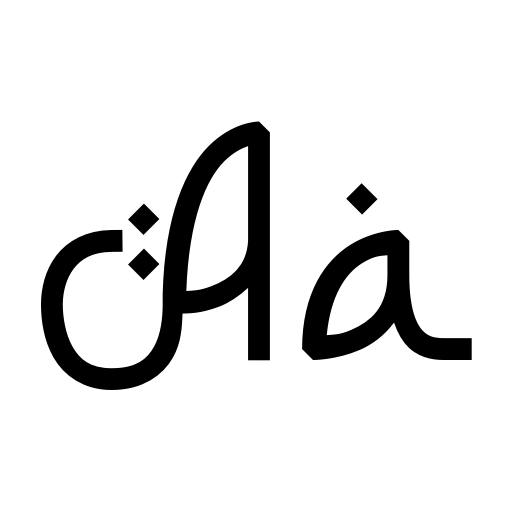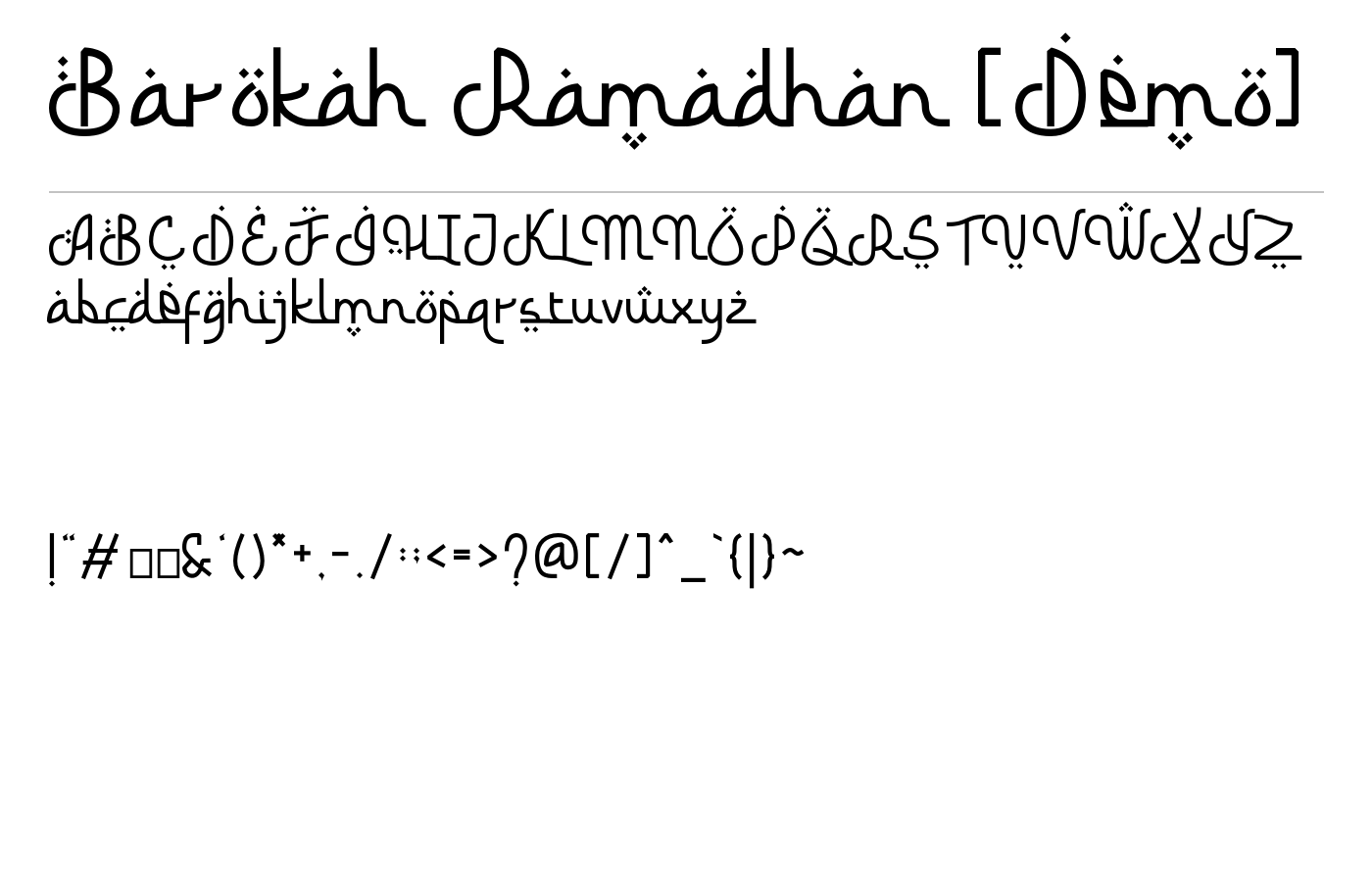
Barokah Ramadhan is a distinctive sans serif display font with a playful, handwritten feel characterized by its thin, curved strokes and unique diacritical marks that add a decorative, whimsical touch. Its slender, tall letterforms with quirky shapes and consistent stroke weight make it ideal for creative headlines, festive branding, and eye-catching invitations, especially those seeking a modern yet culturally expressive vibe. This font works well in projects that want to blend elegance with charm, providing a fresh and artistic look.
Barokah Ramadhan [Demo] Font
About Barokah Ramadhan [Demo] Font
| Designer | Gumilang Anggara Ruslan |